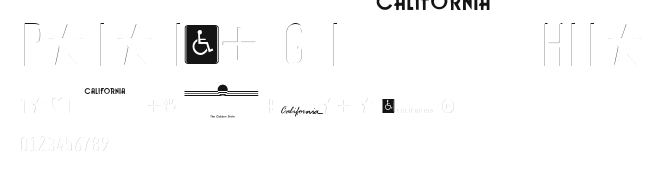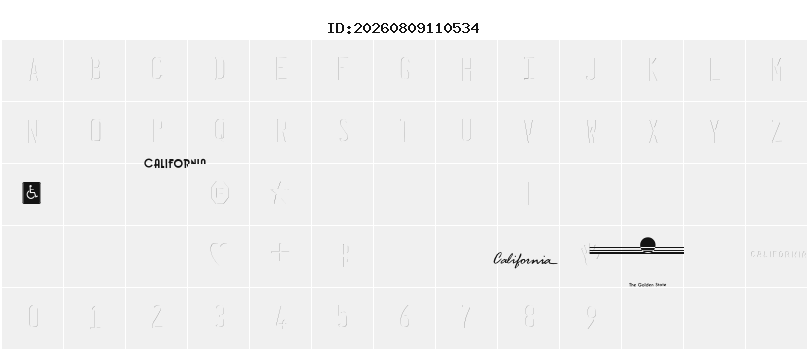
Penitentiary Gothic Hilite Preview
• Font Name: Penitentiary Gothic Hilite
• Full Font Name: Penitentiary Gothic Hilite
About Penitentiary Gothic Hilite.ttf
Penitentiary Gothic Hilite.ttf is a modern, elegant sans-serif font designed for ultimate readability and visual harmony. Perfect for branding, headlines, web design, and print materials.